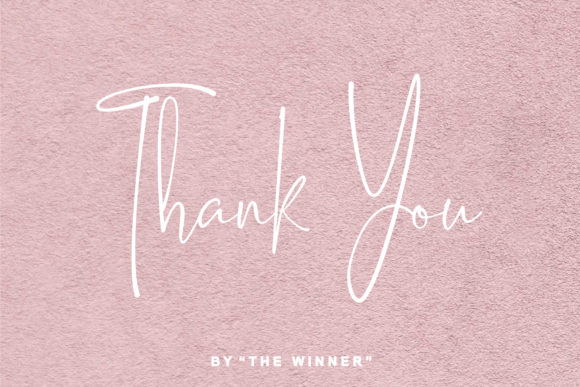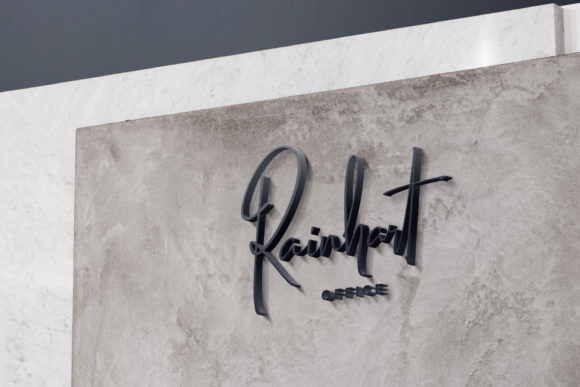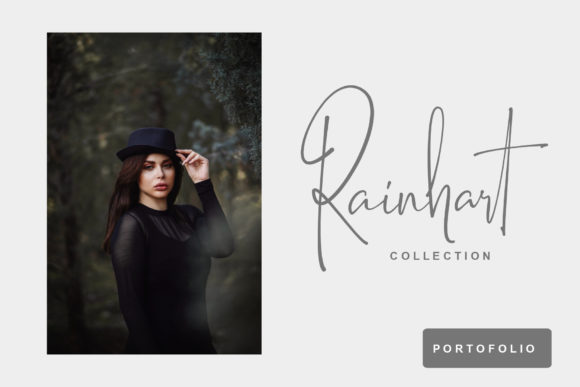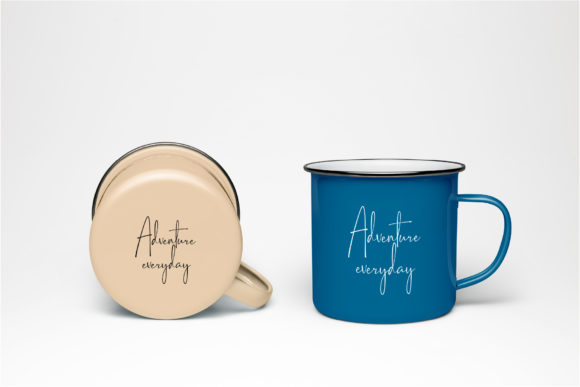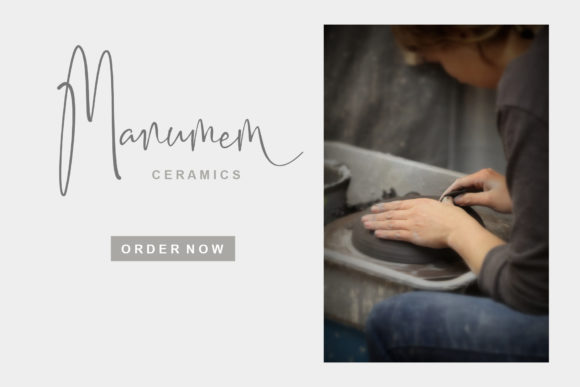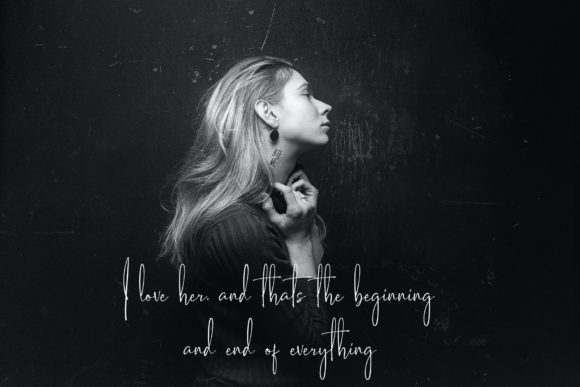
About Rainhart Font
Rainhart is an elegant script font that exudes a delicate and classy look. With its balanced and varied letterforms, this font is designed to enhance the beauty of your projects. Its not-too-thin and not-too-thick strokes strike the perfect balance, making it visually appealing and versatile for various design purposes.
The elegance of Rainhart makes it suitable for a wide range of projects. From formal invitations and wedding stationery to branding materials and elegant logos, Rainhart adds a touch of sophistication and refinement to any design. Its graceful and flowing letterforms create a harmonious and luxurious aesthetic that is sure to captivate your audience.
Rainhart’s versatility is another key aspect of its appeal. Whether you’re designing for print or digital media, this font adapts well to different mediums and sizes, ensuring your design looks exquisite in any context. Its clarity and legibility make it suitable for headlines, titles, and body text, allowing you to create a consistent and cohesive visual experience across your design.
One of the strengths of Rainhart is its ability to convey a sense of elegance and charm while maintaining readability. Each letter is carefully crafted with attention to detail, resulting in a script font that is not only visually pleasing but also easy to read. This makes it a great choice for projects that require both style and clarity, such as editorial designs, packaging, and signage.
Rainhart’s design also offers a range of stylistic alternates and ligatures, providing you with creative flexibility and opportunities for customization. These additional glyphs allow you to add unique flourishes and decorative elements to your designs, further enhancing the elegance and individuality of your work.
In summary, Rainhart is an elegant script font that brings a delicate and classy look to your projects. Its balanced and varied letterforms, combined with its versatility and legibility, make it an excellent choice for a wide range of design applications. Whether you’re creating formal invitations, branding materials, or editorial designs, Rainhart adds a touch of sophistication and refinement that elevates your work to new levels of elegance.